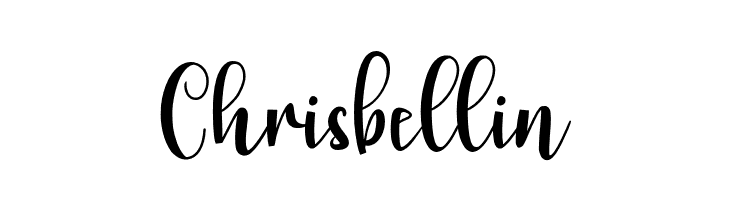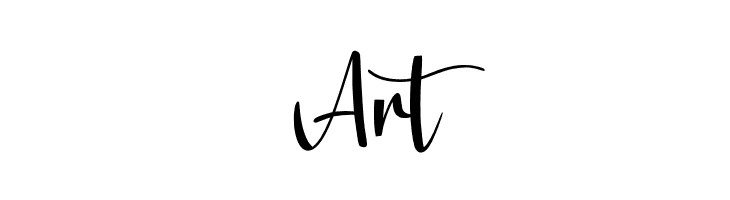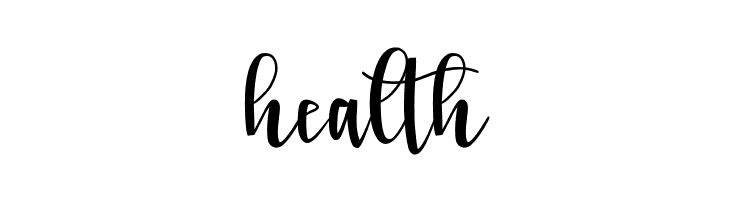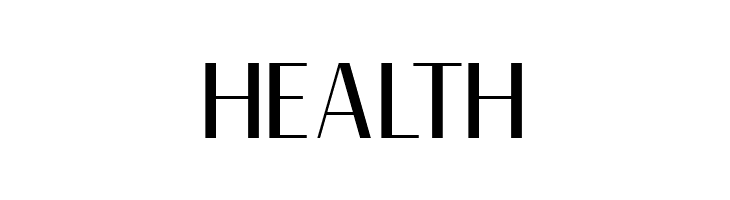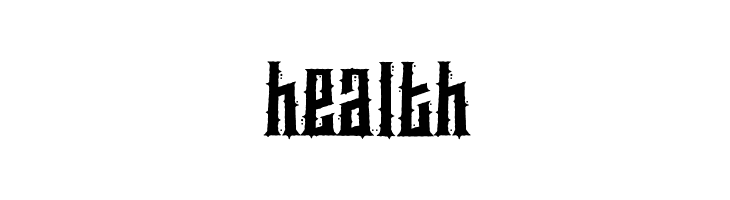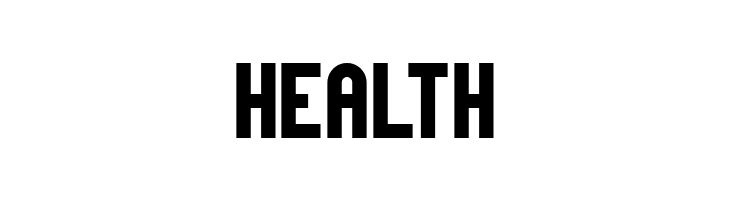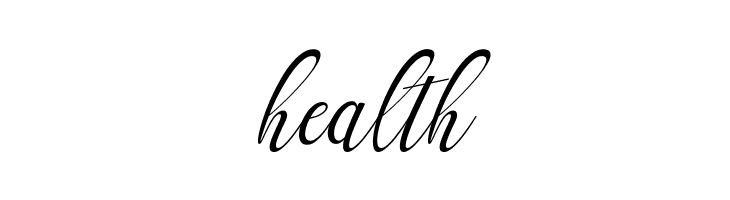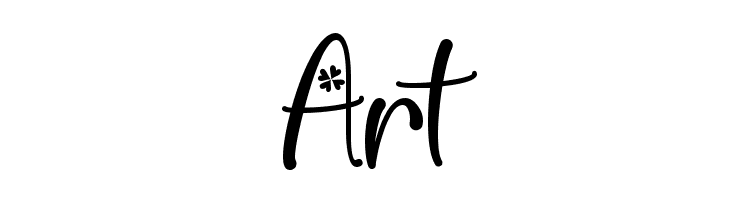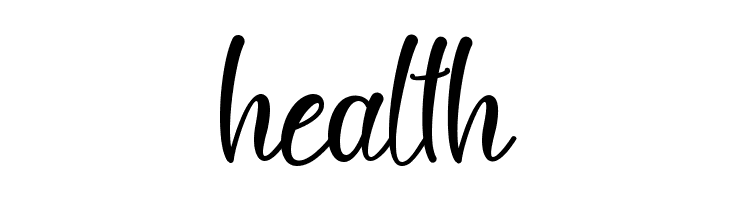
A lively and expressive handwritten font with elegant flourishes.
A flowing, cursive handwritten font with elegant strokes and moderate contrast.
A modern, elegant script font with fluid, cursive letterforms.
A modern, high-contrast font with elegant, slender characters.
A bold, jagged font with a horror-inspired, distressed style.
A bold, modern font with a geometric structure and consistent stroke widths.
A modern, elegant script font with flowing, connected characters.
A classic serif font with high contrast and elegant strokes.
A playful, casual handwritten font with smooth, rounded edges and consistent stroke width.
A playful, decorative handwritten script with floral motifs.